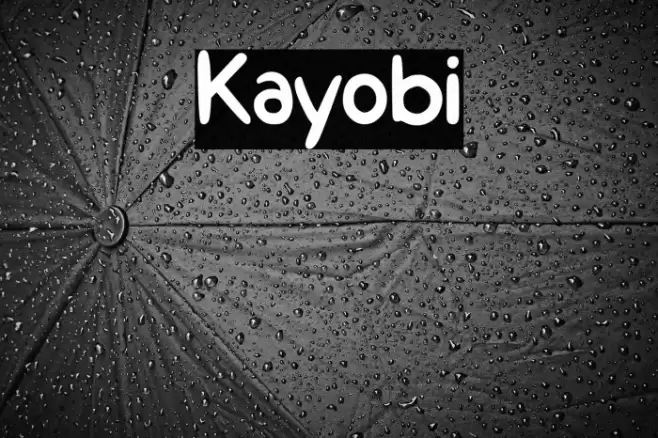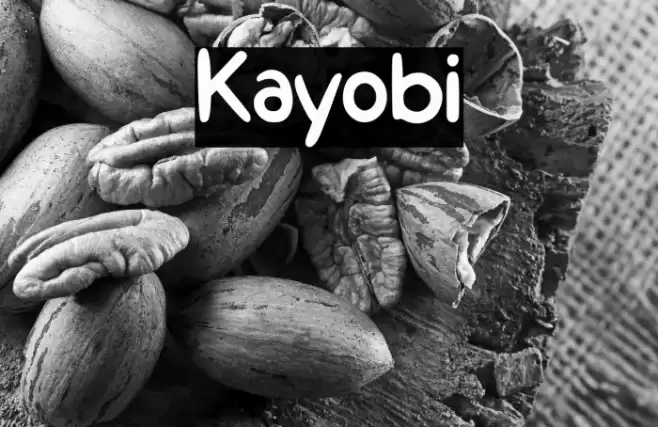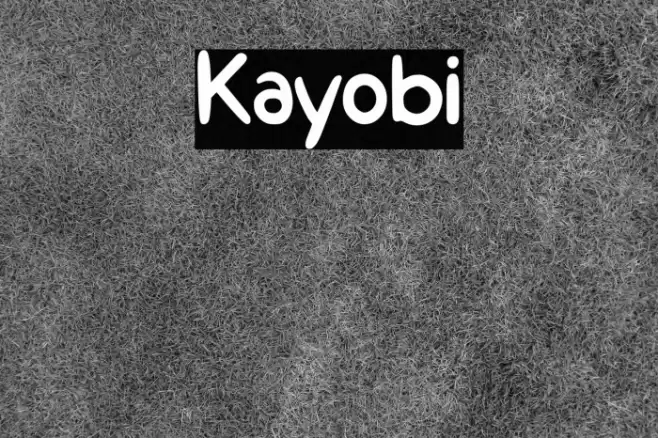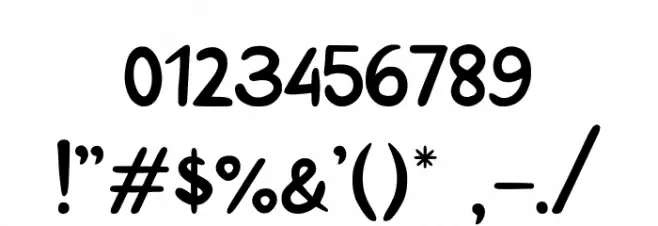
Kayobi Font
Kayobi Description
This playful and rounded font features a bold, handwritten style that exudes a sense of fun and approachability. The characters are slightly irregular, adding to the casual and informal feel. The strokes are consistent in width, providing a uniform appearance across all letters and numbers. The font includes a full set of uppercase and lowercase letters, numerals, and a variety of special characters, making it versatile for different uses. Its whimsical nature makes it ideal for projects that aim to convey friendliness and creativity.
A bold, playful handwritten font with rounded, uniform strokes from Regular fonts.
- Proposed Projects: Ideal for children's books, playful branding, greeting cards, and creative posters.
- Overall Style: Playful